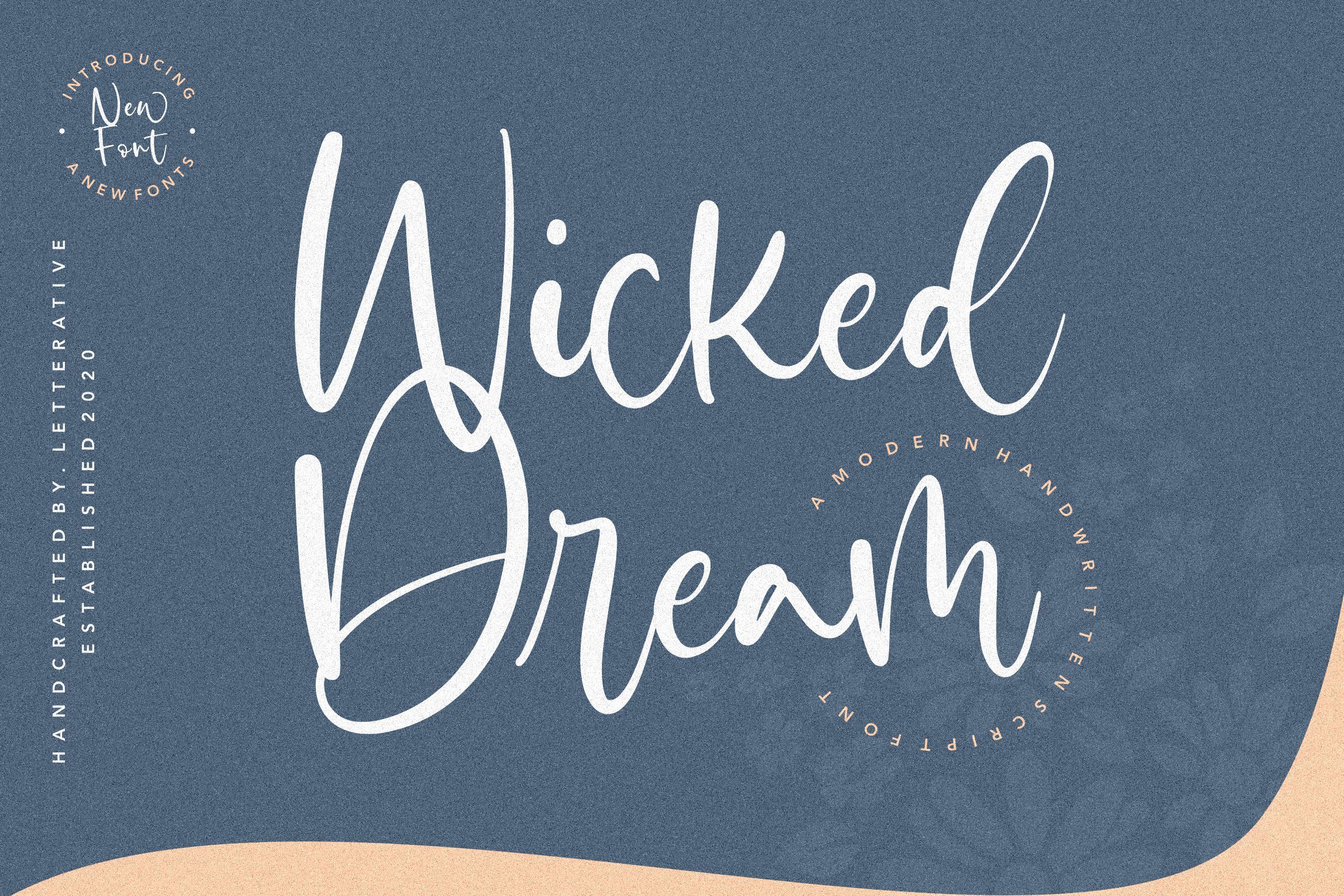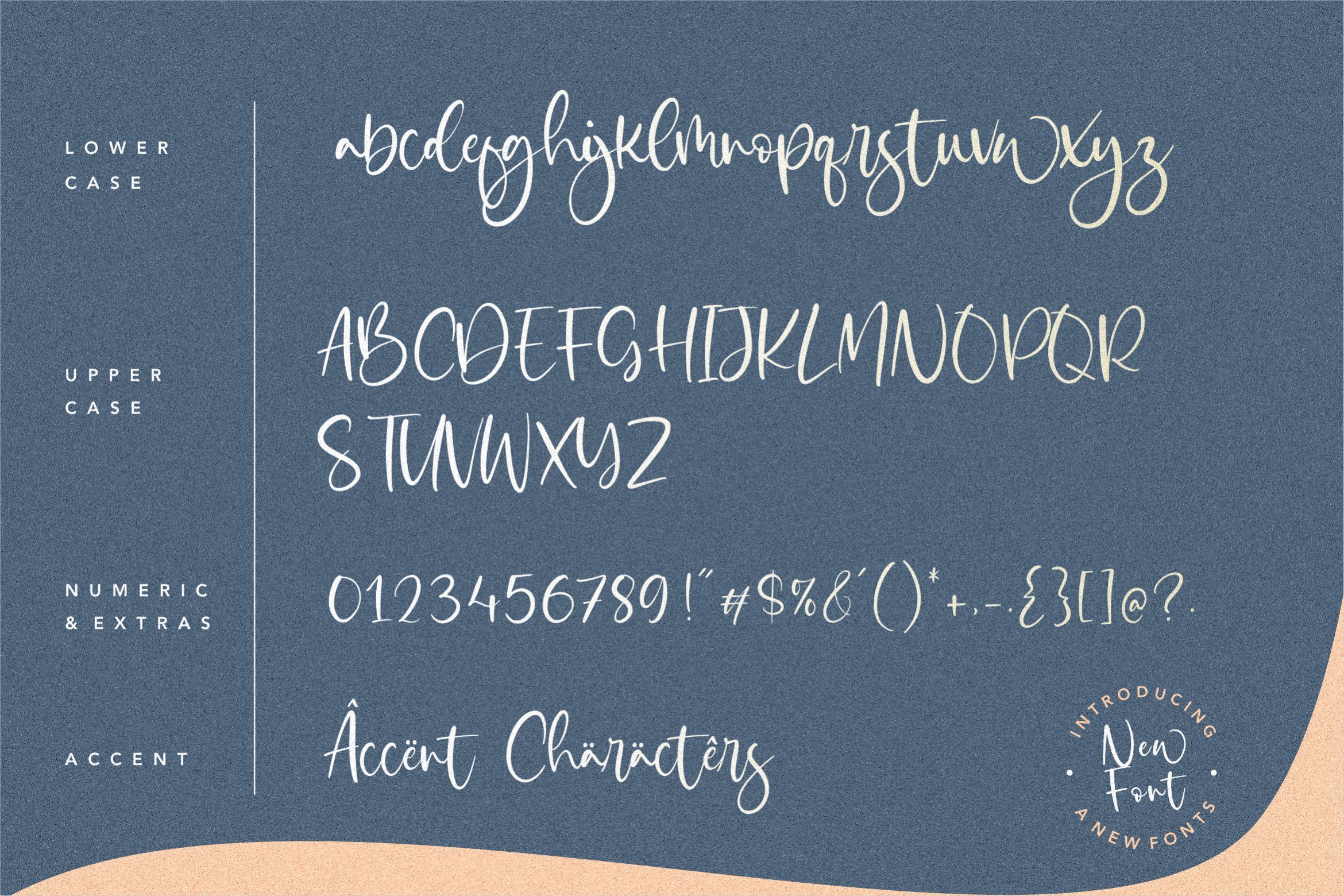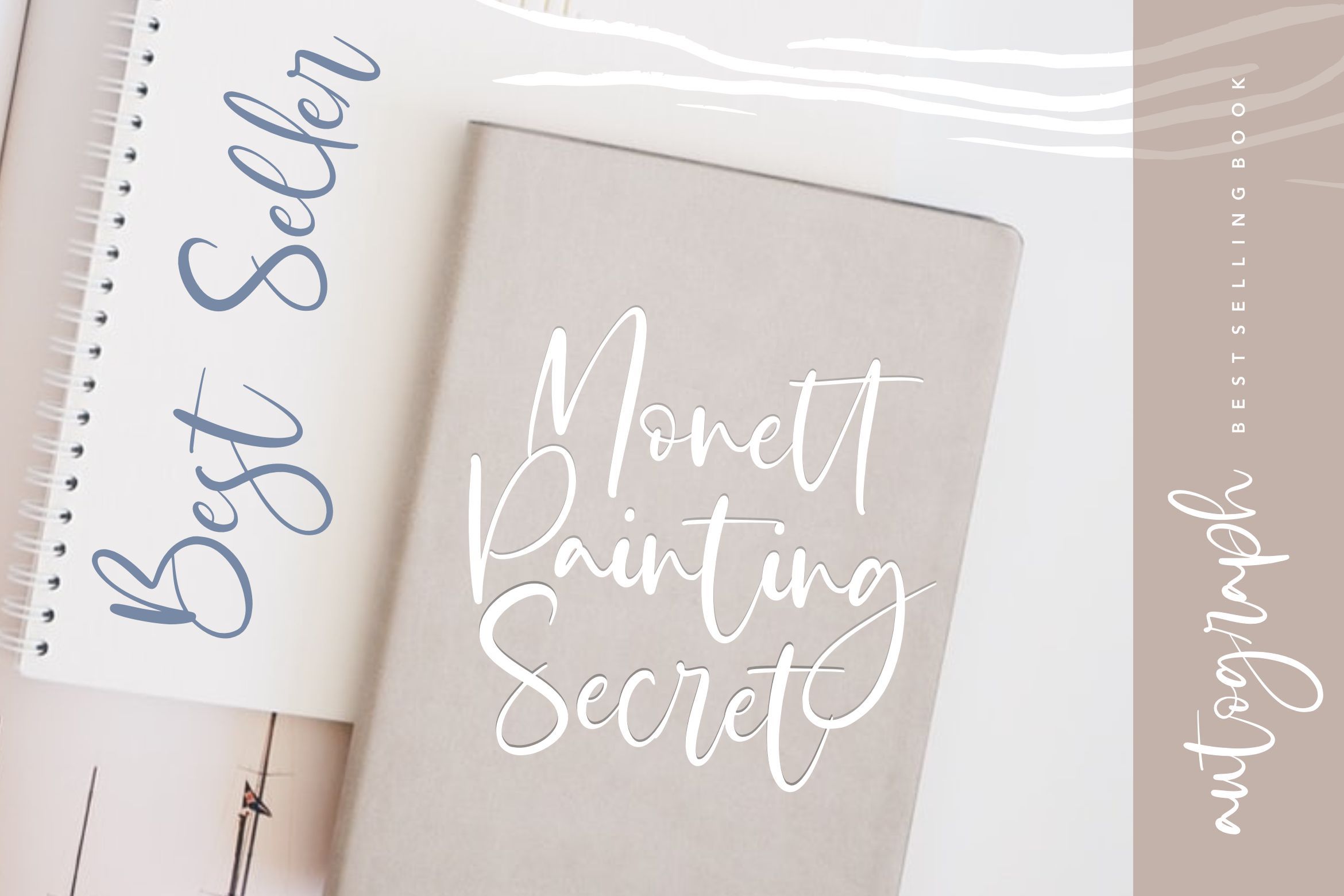
About Wicked Dream Modern Handwritten Script Font
Introducing by Letterative Studio : Wicked Dream Font Wicked Dream is a Modern Handwritten Script Font Wicked Dream is the best choice for creating eye catching logos, branding and quotes. Every letter has a unique and distinct touch, which will make your design come alive! This font includes : TTF and OTF Wicked Dream also multilingual support Enjoy the font! Feel free to comment or feedback Send me PM or email Thank you!